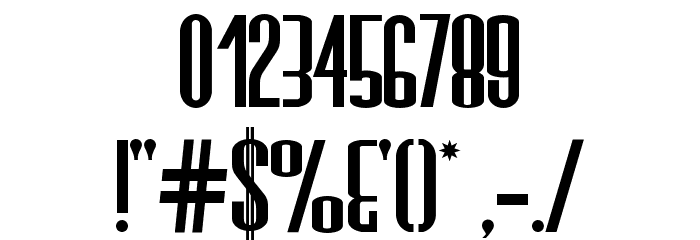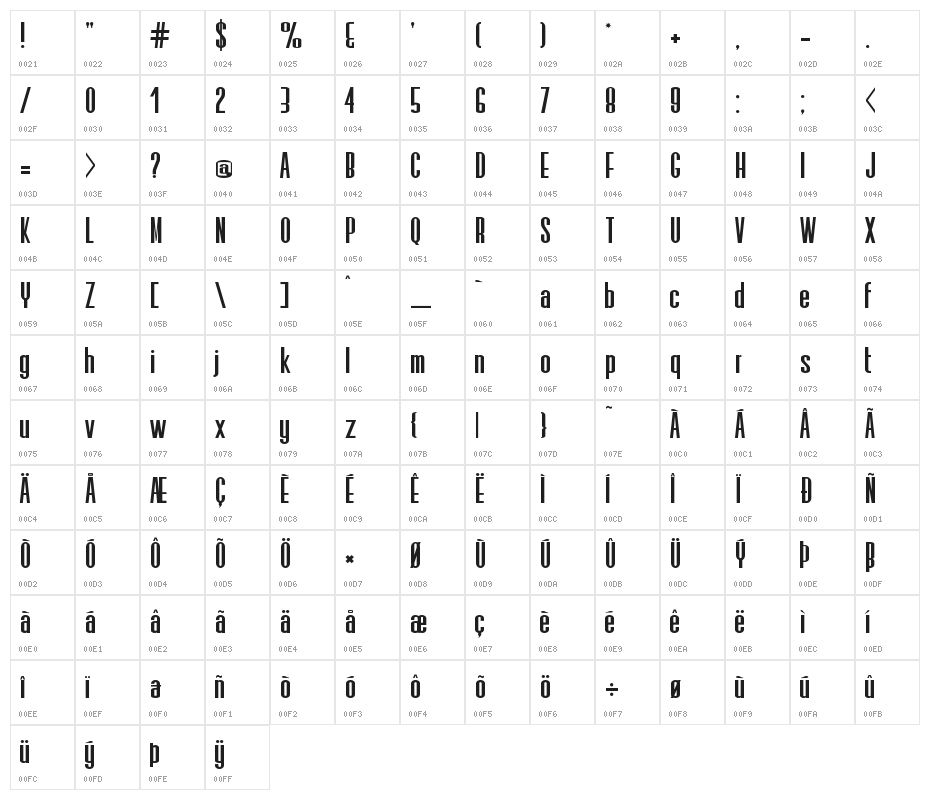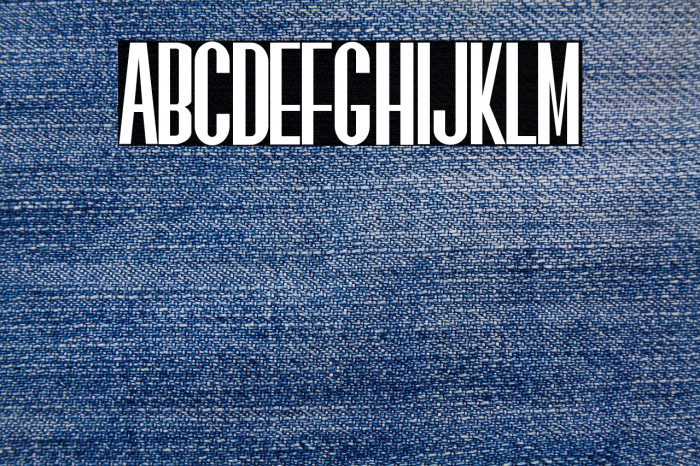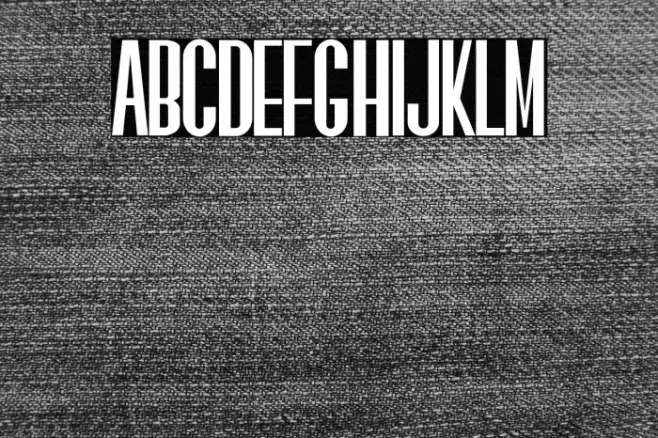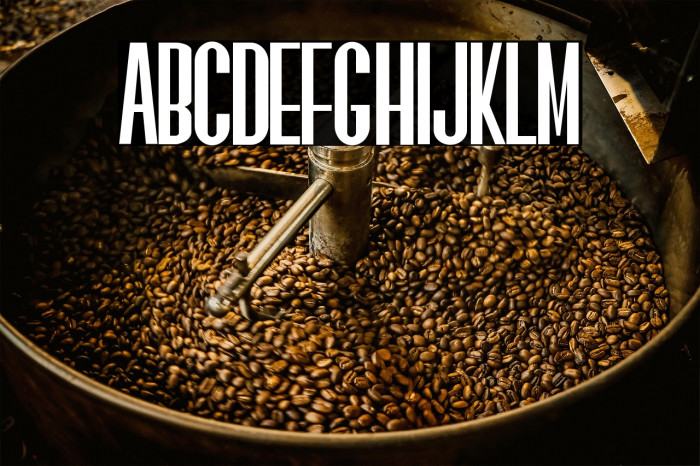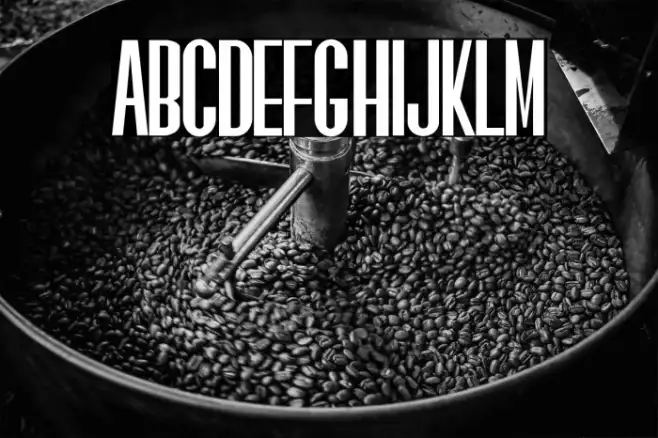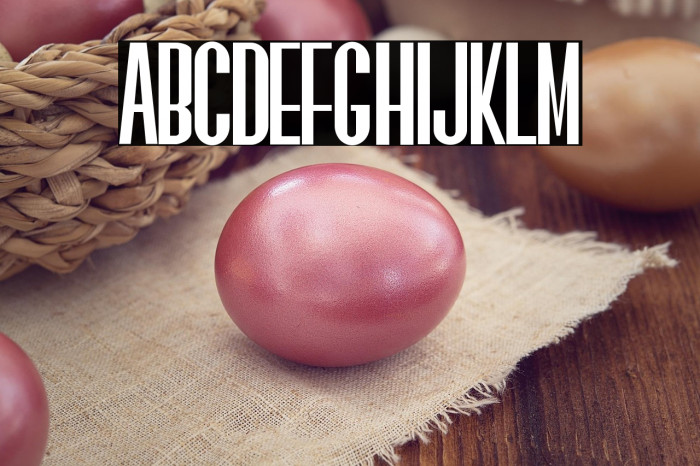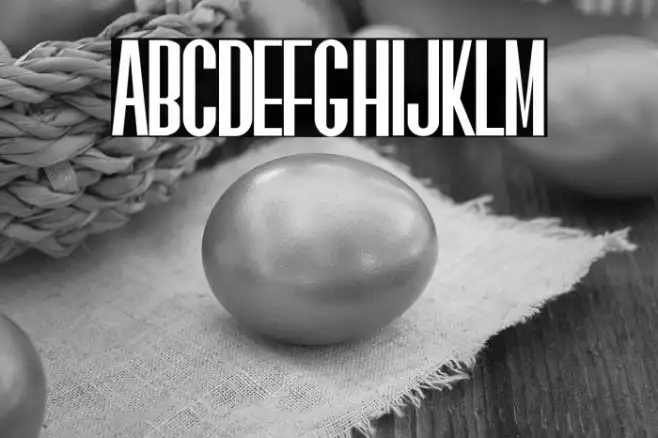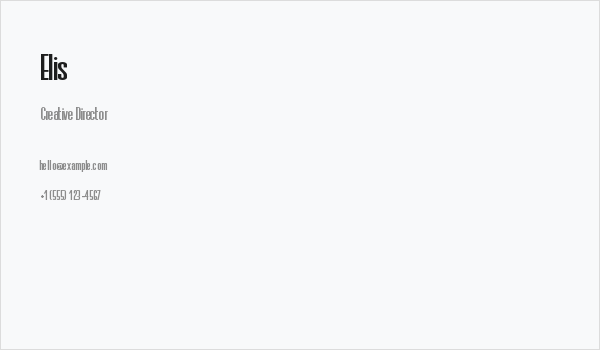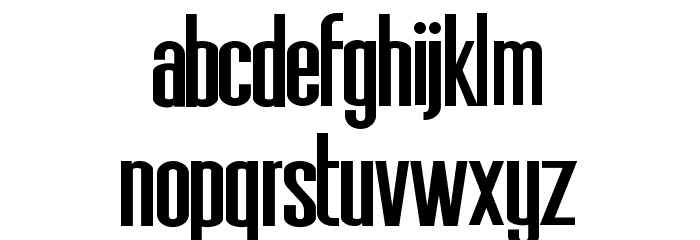
Elis Font
Elis Description
This font features a bold and condensed style with tall, narrow characters that convey a strong and assertive presence. The uppercase letters are particularly elongated, giving a sense of height and elegance. The lowercase letters maintain a consistent width, complementing the uppercase with a slightly softer touch. The numerals are clear and easy to read, fitting seamlessly with the overall design. Special characters are distinct and maintain the bold aesthetic, ensuring versatility in various applications. The font's high contrast between thick and thin strokes adds to its striking appearance, making it ideal for attention-grabbing headlines and impactful designs.
| Proposed Projects | Ideal for posters, headlines, branding, and advertising where a strong visual impact is needed. |